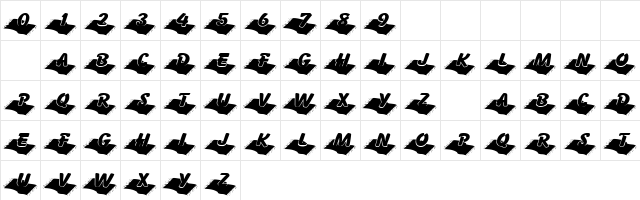
101! MagiK Carpet Ride Regular
Design Context for 101! MagiK Carpet Ride Typeface
101! MagiK Carpet Ride is a composed and adaptable typeface that performs quietly and consistently across a wide range of design contexts.